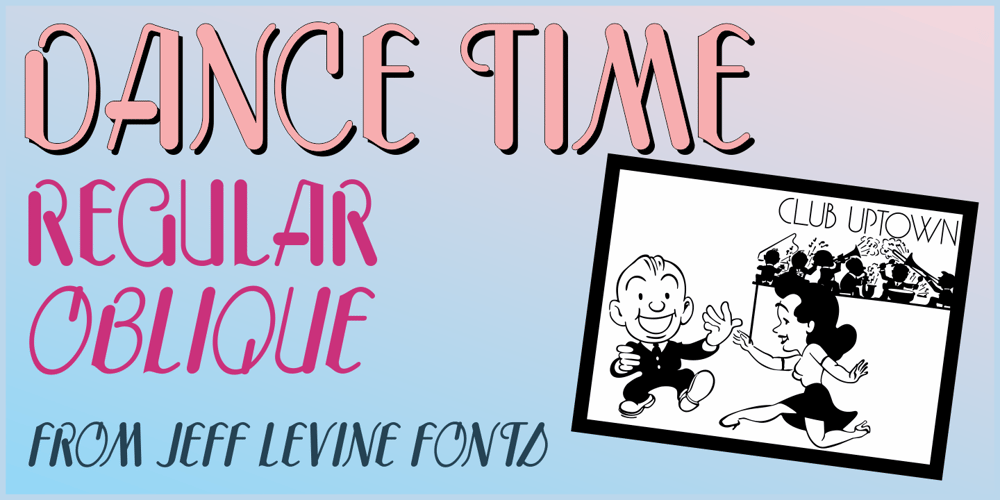
Dance Time JNL Font Family was designed by Jeff Levine and published by Jeff Levine. Dance Time JNL contains 2 styles and family package options. The words “Benny Goodman & His Orchestra” on an appearance poster for the band from 1936 were rendered in a beautiful semi-script style of hand lettering.